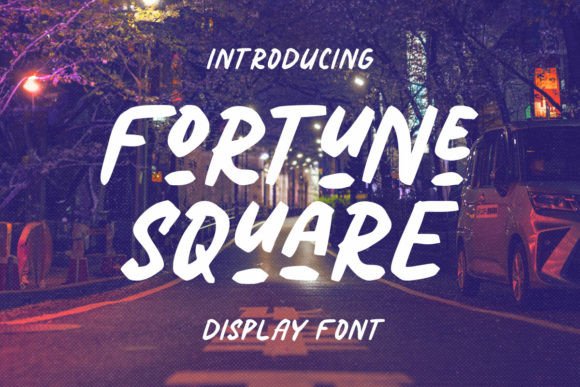
Fortune Square Font: A Bold and Elegant Street Display Font
When it comes to creating visually stunning designs, the right font can make all the difference. If you’re looking for a font that exudes elegance and sophistication, look no further than Fortune Square Font. This street display font is handcrafted with natural handwriting, giving it a unique and distinctive look that’s sure to stand out.
What is Fortune Square Font?
Fortune Square Font is a bold and eye-catching font that’s perfect for a variety of design applications. Its bold strokes and natural handwriting style make it an excellent choice for logos, titles, headlines, slogans, and taglines. Whether you’re designing an invitation, label, logo, magazine, book, greeting card, or packaging, Fortune Square Font is an excellent choice.
Key Features of Fortune Square Font
- Natural Handwriting Style: Fortune Square Font is crafted with natural handwriting, giving it a unique and distinctive look.
- Bold Strokes: The font features bold strokes that make it stand out from other fonts.
- Versatile: Fortune Square Font is suitable for a variety of design applications, including logos, titles, headlines, slogans, and taglines.
- Elegant and Sophisticated: The font exudes elegance and sophistication, making it perfect for high-end designs.
Uses of Fortune Square Font
Fortune Square Font is an incredibly versatile font that can be used for a variety of design applications. Here are some of the most popular uses of this font:
- Logos: Fortune Square Font is perfect for creating unique and eye-catching logos that stand out from the crowd.
- Titles and Headlines: The font’s bold strokes and natural handwriting style make it an excellent choice for titles and headlines.
- Slogans and Taglines: Fortune Square Font is perfect for creating memorable slogans and taglines that capture the essence of a brand.
- Invitations: The font’s elegant and sophisticated look makes it perfect for invitations, including wedding invitations, birthday invitations, and more.
- Labels and Packaging: Fortune Square Font is an excellent choice for labels and packaging, adding a touch of elegance and sophistication to any product.
- Magazines and Books: The font is perfect for magazine and book titles, adding a touch of elegance and sophistication to any publication.
- Greeting Cards: Fortune Square Font is perfect for creating unique and eye-catching greeting cards, including wedding cards, birthday cards, and more.
- Stationery: The font is perfect for creating elegant and sophisticated stationery, including letterheads, envelopes, and more.
Why Choose Fortune Square Font?
There are many reasons why Fortune Square Font is an excellent choice for designers. Here are just a few:
- Unique and Distinctive: Fortune Square Font is a unique and distinctive font that’s sure to stand out from other fonts.
- Elegant and Sophisticated: The font exudes elegance and sophistication, making it perfect for high-end designs.
- Versatile: Fortune Square Font is suitable for a variety of design applications, making it an excellent addition to any designer’s font library.
- Easy to Read: Despite its bold strokes, Fortune Square Font is easy to read, making it perfect for body text and other applications where readability is important.
Tips for Using Fortune Square Font
Here are a few tips for using Fortune Square Font:
- Use it Sparingly: Fortune Square Font is a bold and eye-catching font, so use it sparingly to avoid overwhelming the design.
- Pair it with Other Fonts: Fortune Square Font pairs well with other fonts, so don’t be afraid to experiment with different font combinations.
- Adjust the Size and Color: Adjust the size and color of Fortune Square Font to suit the design and ensure it stands out.
Fortune Square Font is an elegant and sophisticated street display font that’s perfect for a variety of design applications. Its bold strokes and natural handwriting style make it an excellent choice for logos, titles, headlines, slogans, and taglines. With its versatility, unique look, and ease of use, Fortune Square Font is an excellent addition to any designer’s font library.